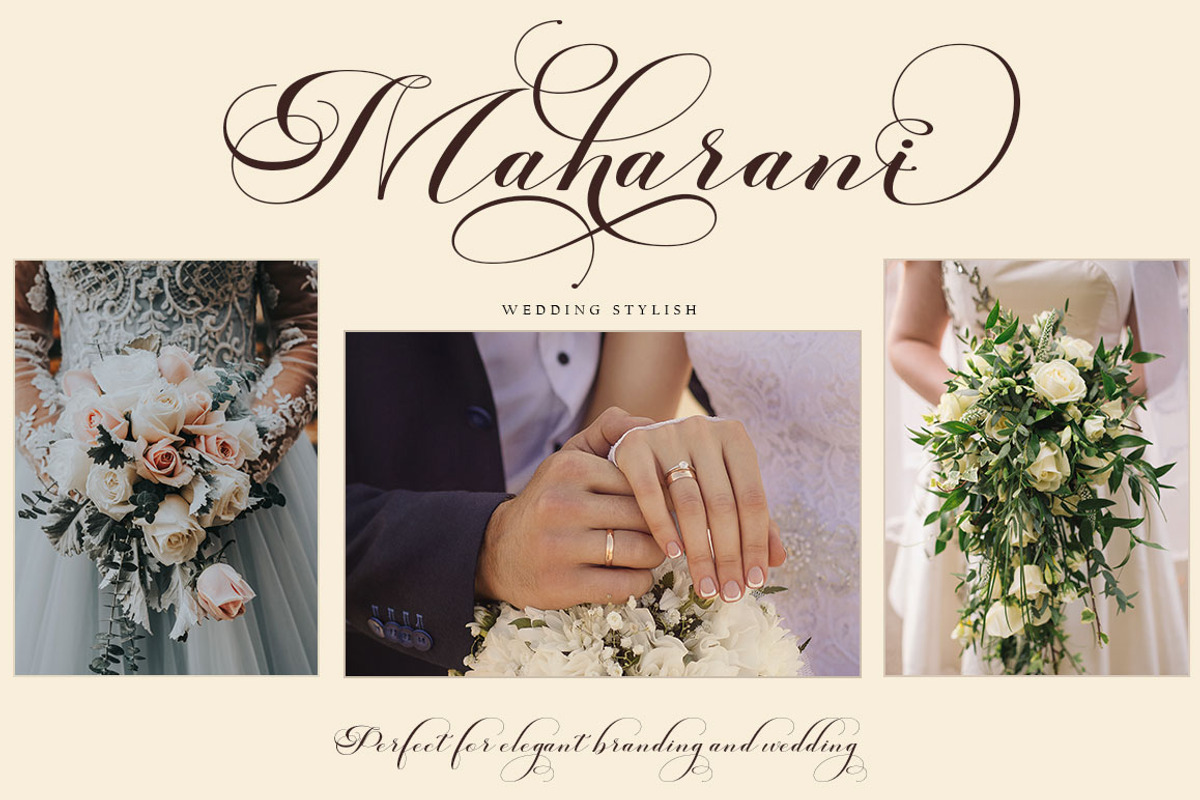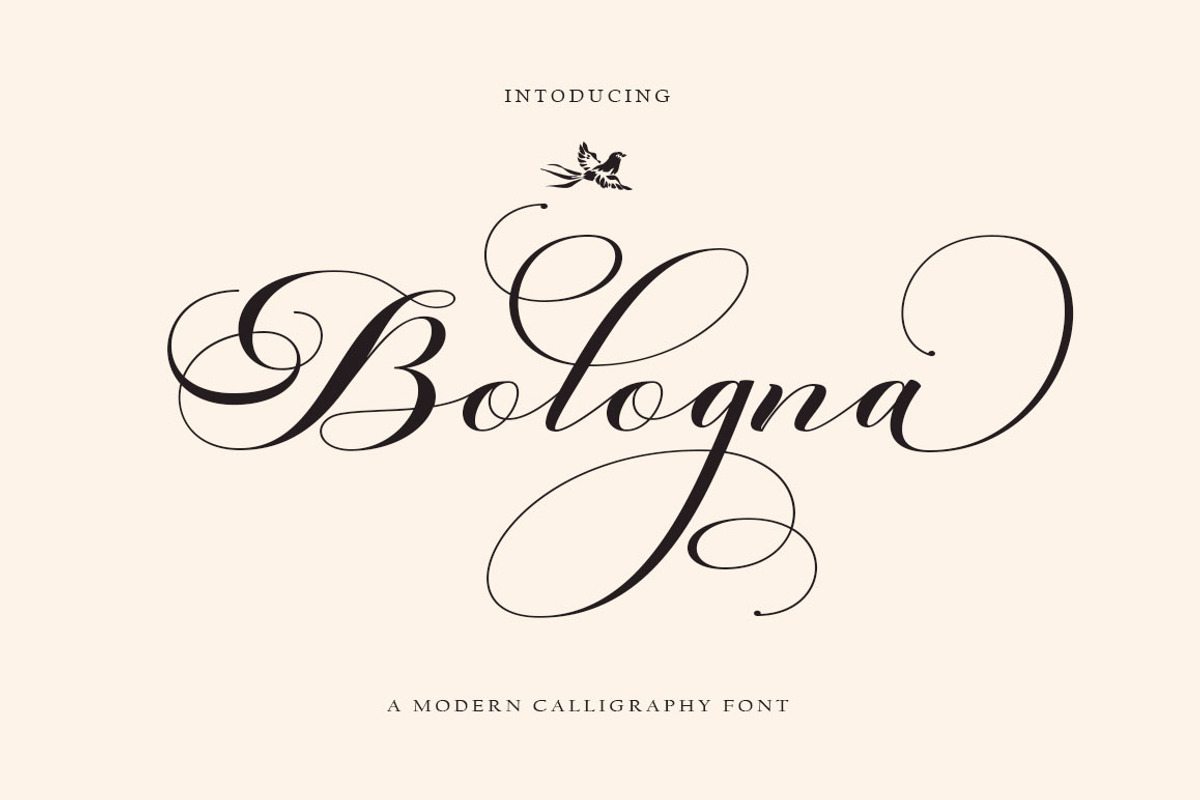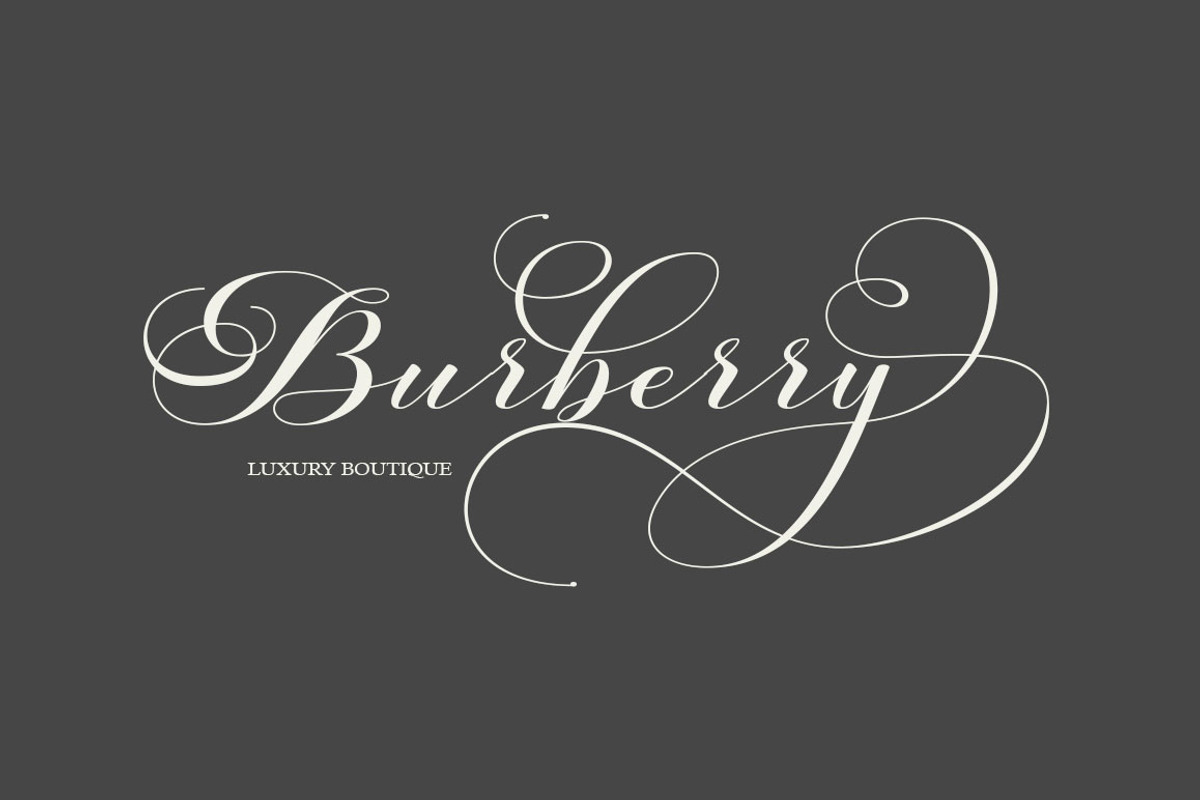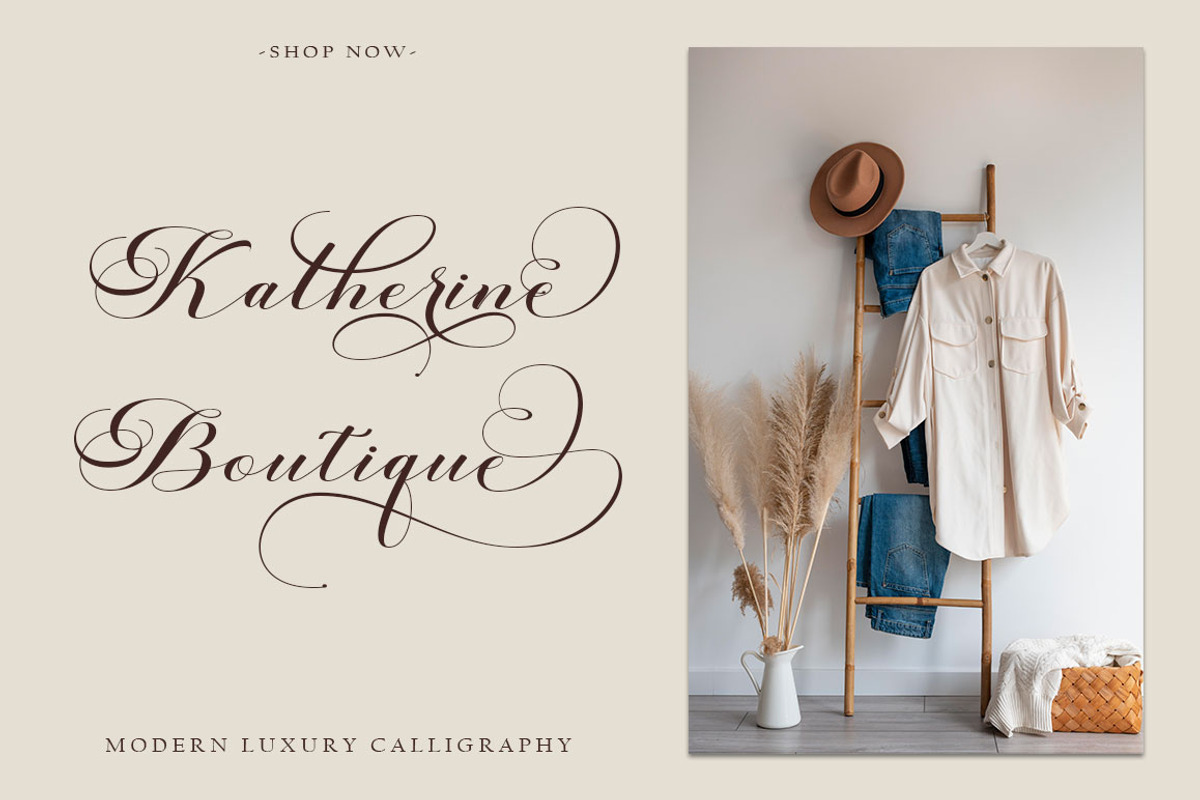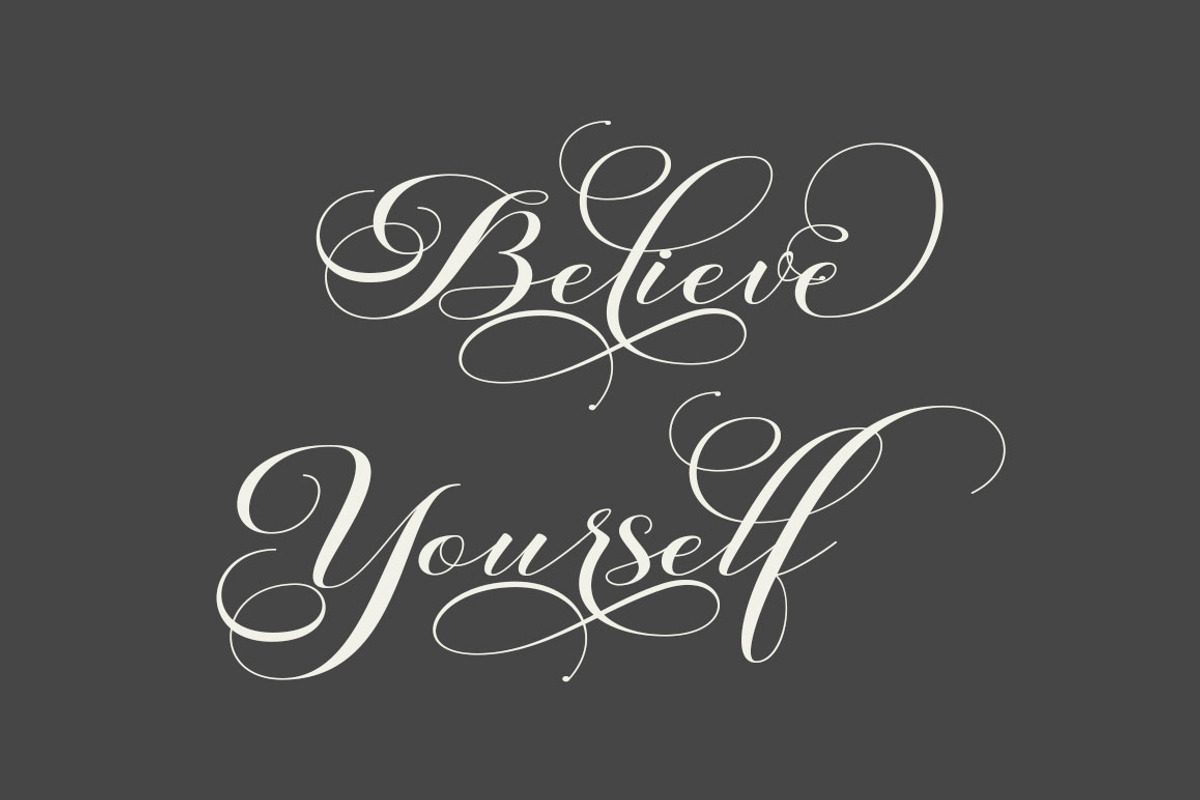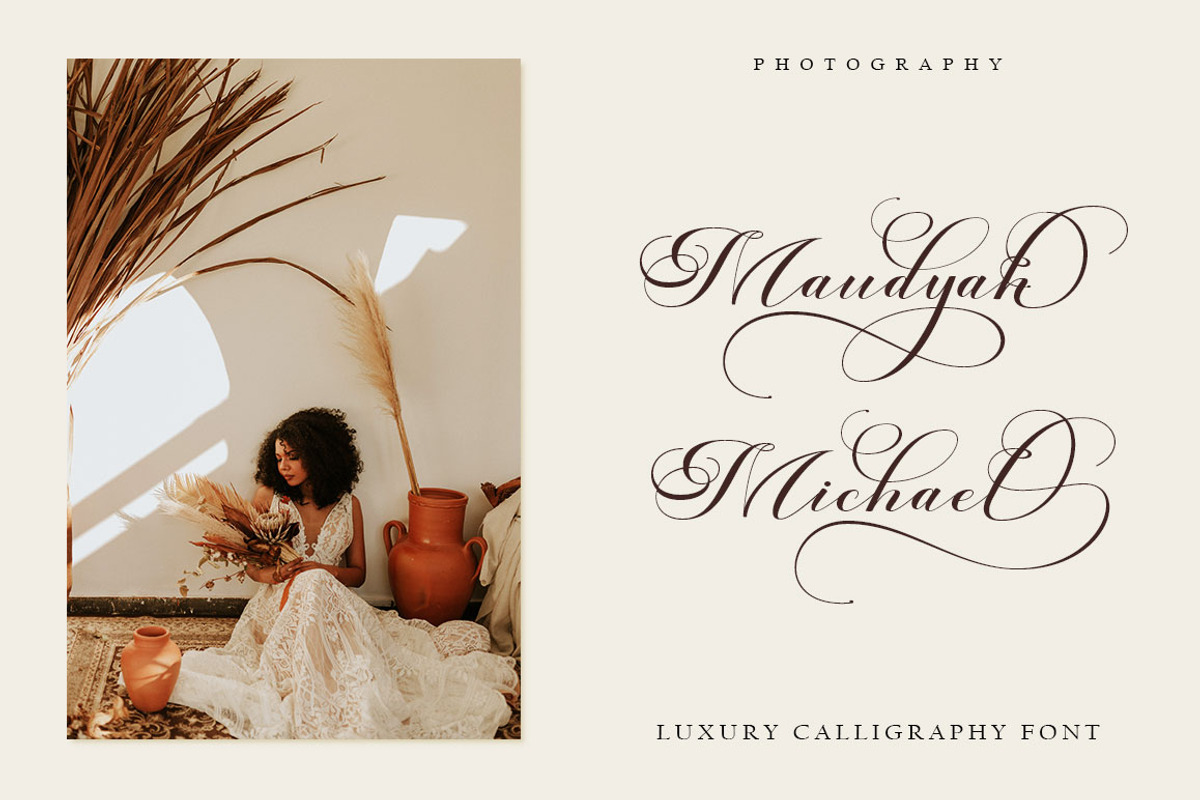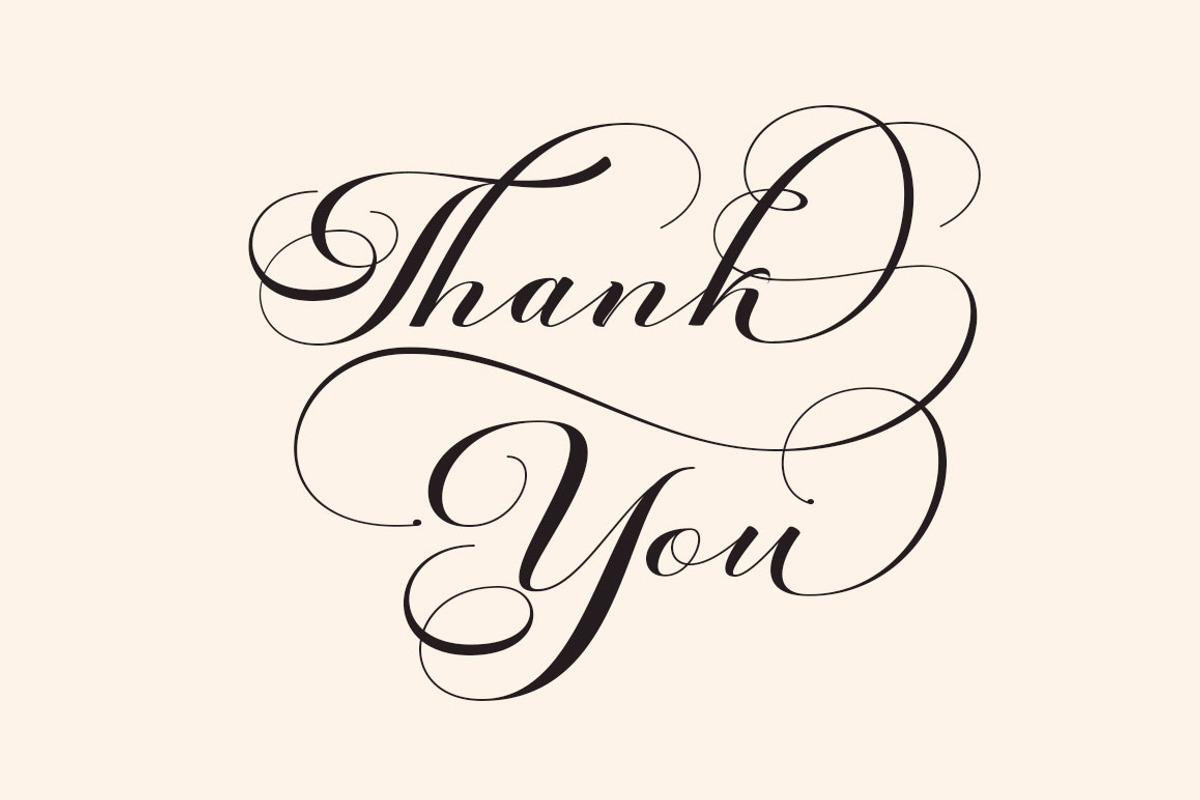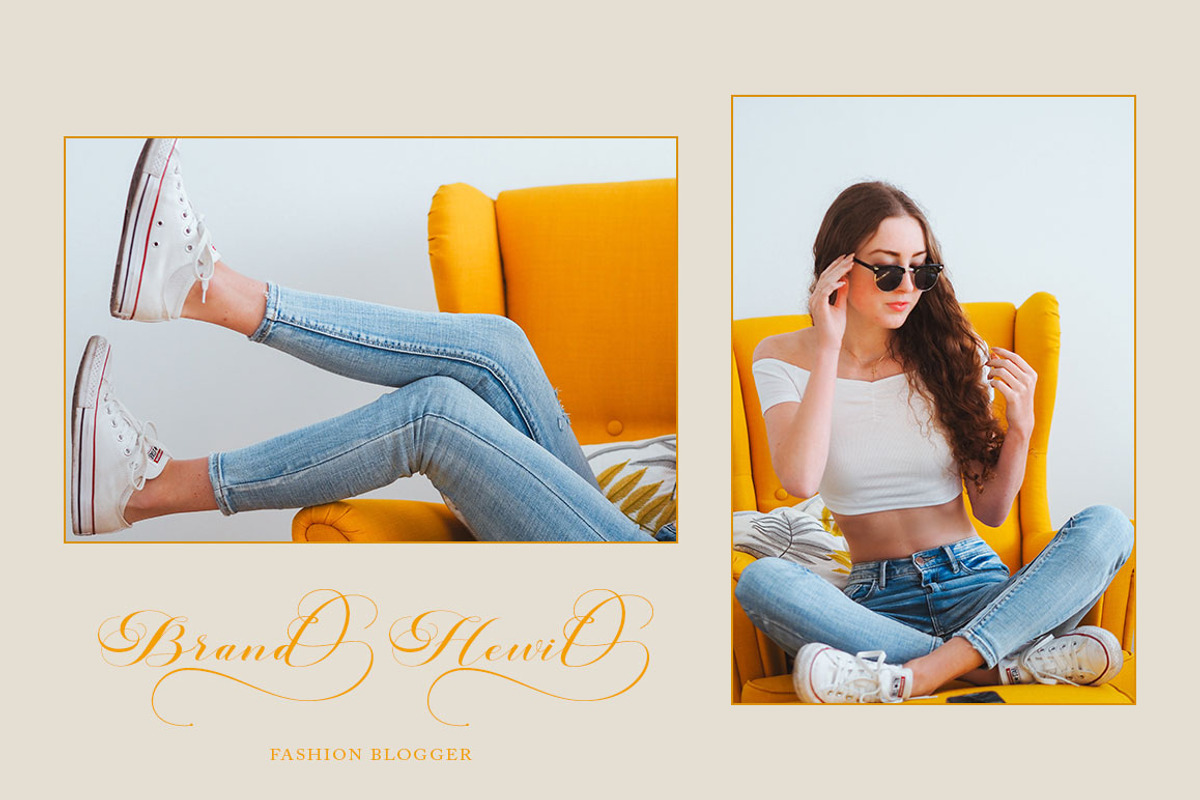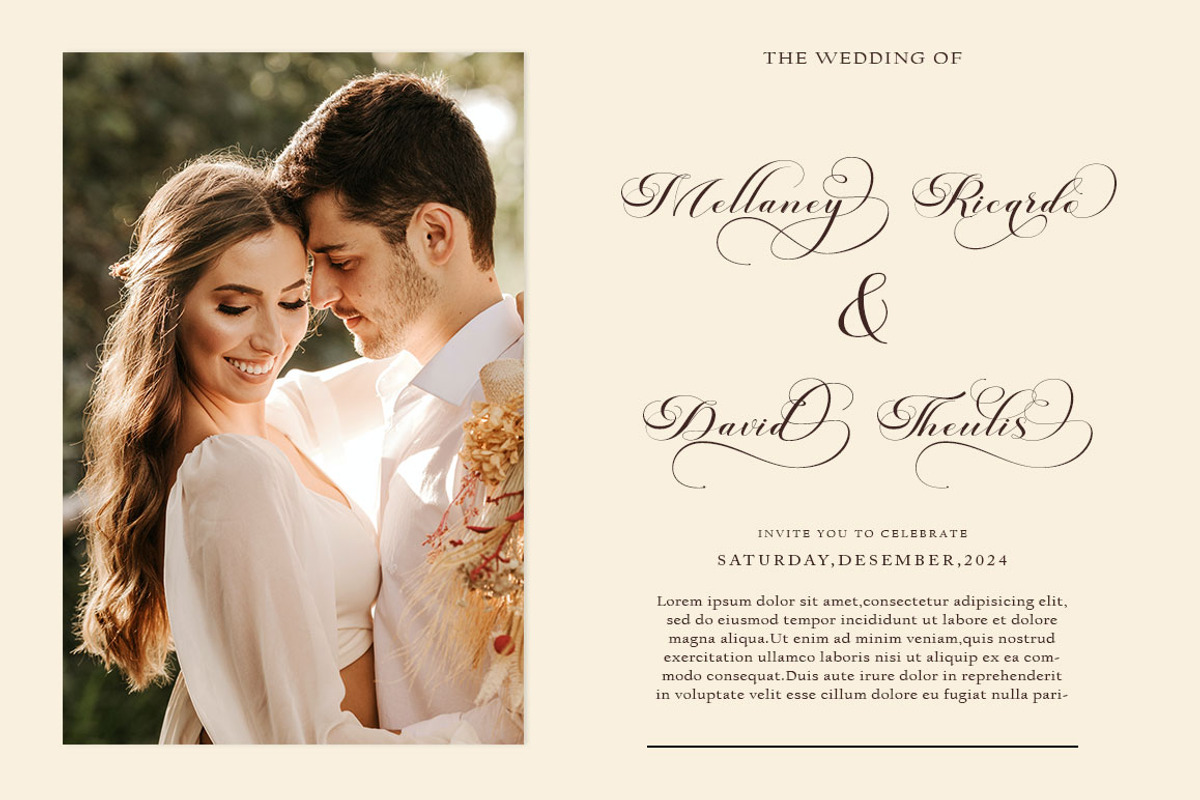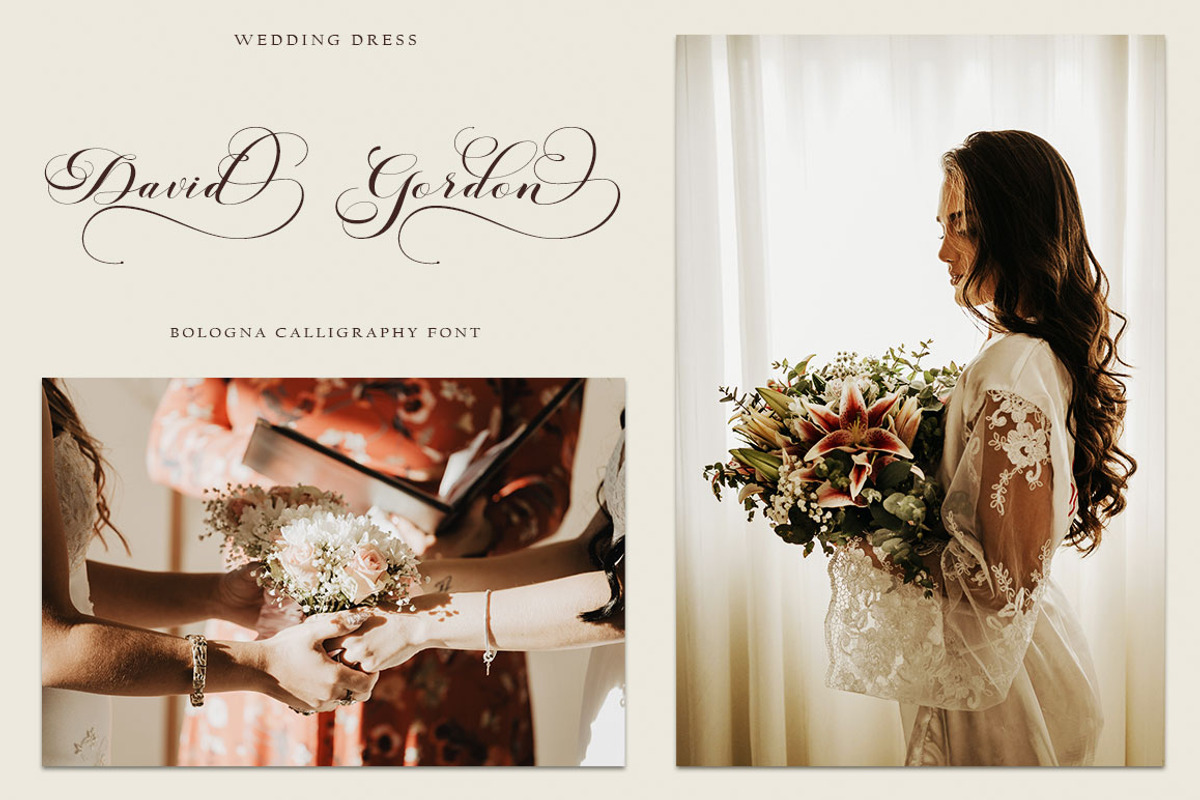
Bologna Script
Welcome to the Bologna Script font is a modern, casual, and beautiful calligraphic typeface with a swash. It can be used for many purposes. such as titles, signatures, logos, wedding invitations, letterheads, nameplates, labels, newsletters, posters, badges, etc. Bologna Script Features Open type, including initial and terminal letters, alternatives, binders, and International support for most Western languages included.